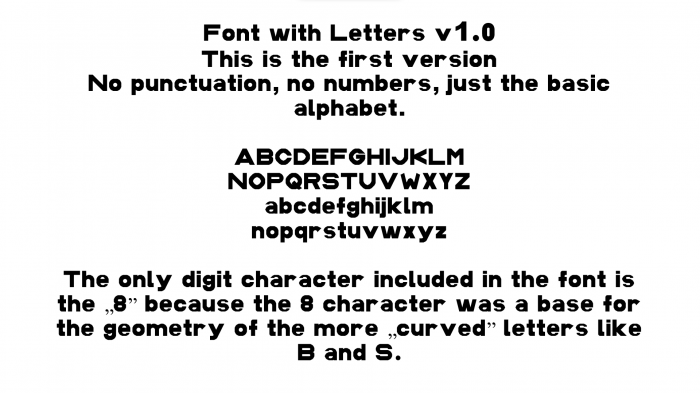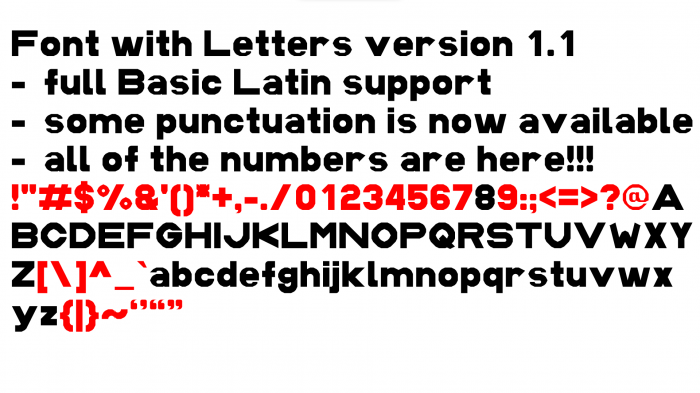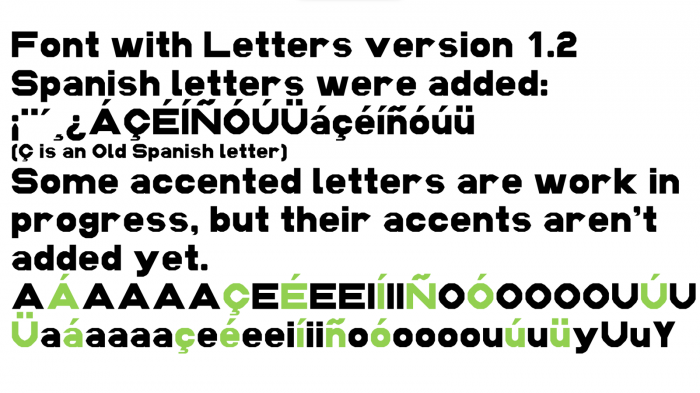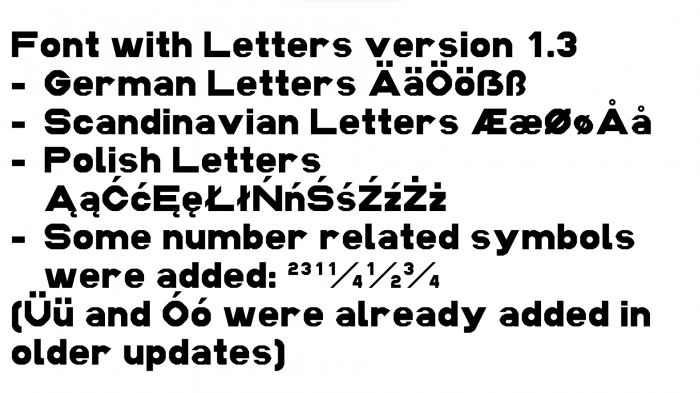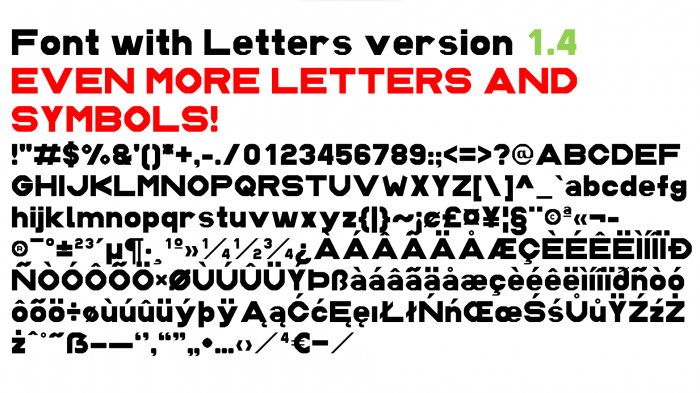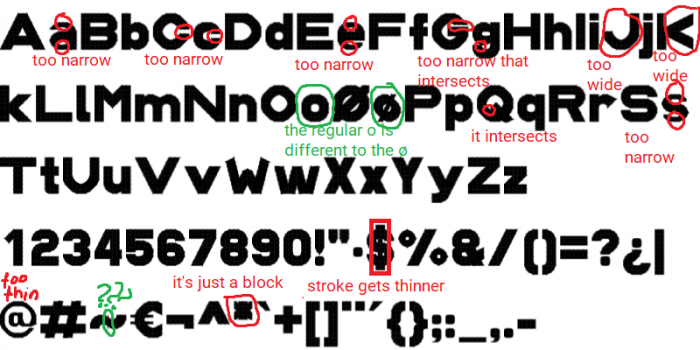
Version 1.0:all letters are here, as well as the number 8 (because some letters have the geometry of the 8 so it was useful.
I'm currently adding more numbers and other stuff for the next update
new update with some more glyphs
more letters
New Update! More letters and symbols!
The font is now expanded to the "Google Fonts Basic" set!
@Pszczół: I don't think adding more characters at this stage is a good idea. Your basic character set is in desperate need of refinement. Consider optical adjustments of the rounded letters, and weed out inconsistencies of stroke width, among other things. This is a good opportunity to learn a lot about type design.
i decided to put some basic latin in user imput to see the font's flaws:
letters mentioned:
aCceGgs->too narrow
JK->too wide
o vs ø->the o in the ø is different to the reg. o
Qg->it intersects
$->stroke gets thinner inside
@->too thin·*->just a block
and i found 2 stray bricks inside ~
OK, I'll make updates for fixing the letters before adding more
Is this any good?
The rounded letters should be a little bigger to look the same size as the square ones.
I think I'll just make a new font
Nooooooooooooo don't
what did i do